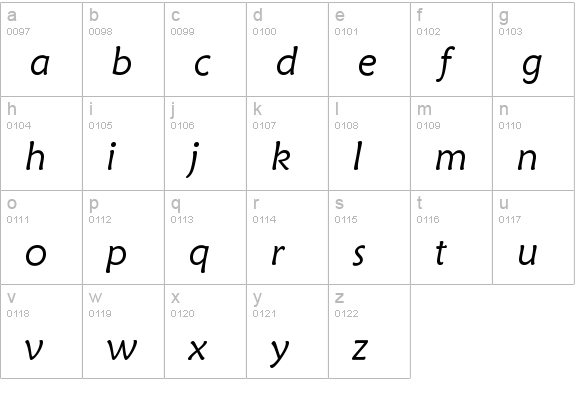
Maiandra Italic Font Details
Maiandra Italic is a distinctive, italic variant in the Maiandra typeface family \xE2\x80\x94 well suited to design and typography projects.
Maiandra Italic is a stunning and elegant font that exudes sophistication and grace. With its flowing curves and delicate strokes, this font brings a touch of class to any design project. Whether you're creating a wedding invitation, a logo, or a brand identity, Maiandra Italic will add a touch of elegance and charm. What sets Maiandra Italic apart is not only its timeless beauty but also its versatility. It is perfect for both formal and informal designs, making it suitable for a wide range of projects. From elegant wedding stationery to luxury branding, Maiandra Italic effortlessly adapts to any style or theme. One of the best things about Maiandra Italic is that it is free. Yes, you read that right - this exquisite font is freely available to download at FontsMarket.com. This means that you can add a touch of sophistication to your designs without breaking the bank. Whether you're a professional designer or a hobbyist, this font is a valuable addition to your font library. Maiandra Italic's legibility and readability make it an excellent choice for both print and digital designs. Its graceful curves and smooth lines ensure that every letter flows seamlessly, creating an engaging and visually appealing experience for readers. It is a font that demands attention and leaves a lasting impression. So why wait? Download Maiandra Italic today from FontsMarket.com and unleash your creativity. Whether you're designing a website, crafting an invitation, or working on a branding project, Maiandra Italic will elevate your design to new heights. Don't miss out on this incredible opportunity to have a stunning font in your arsenal - and the best part is, it's free.